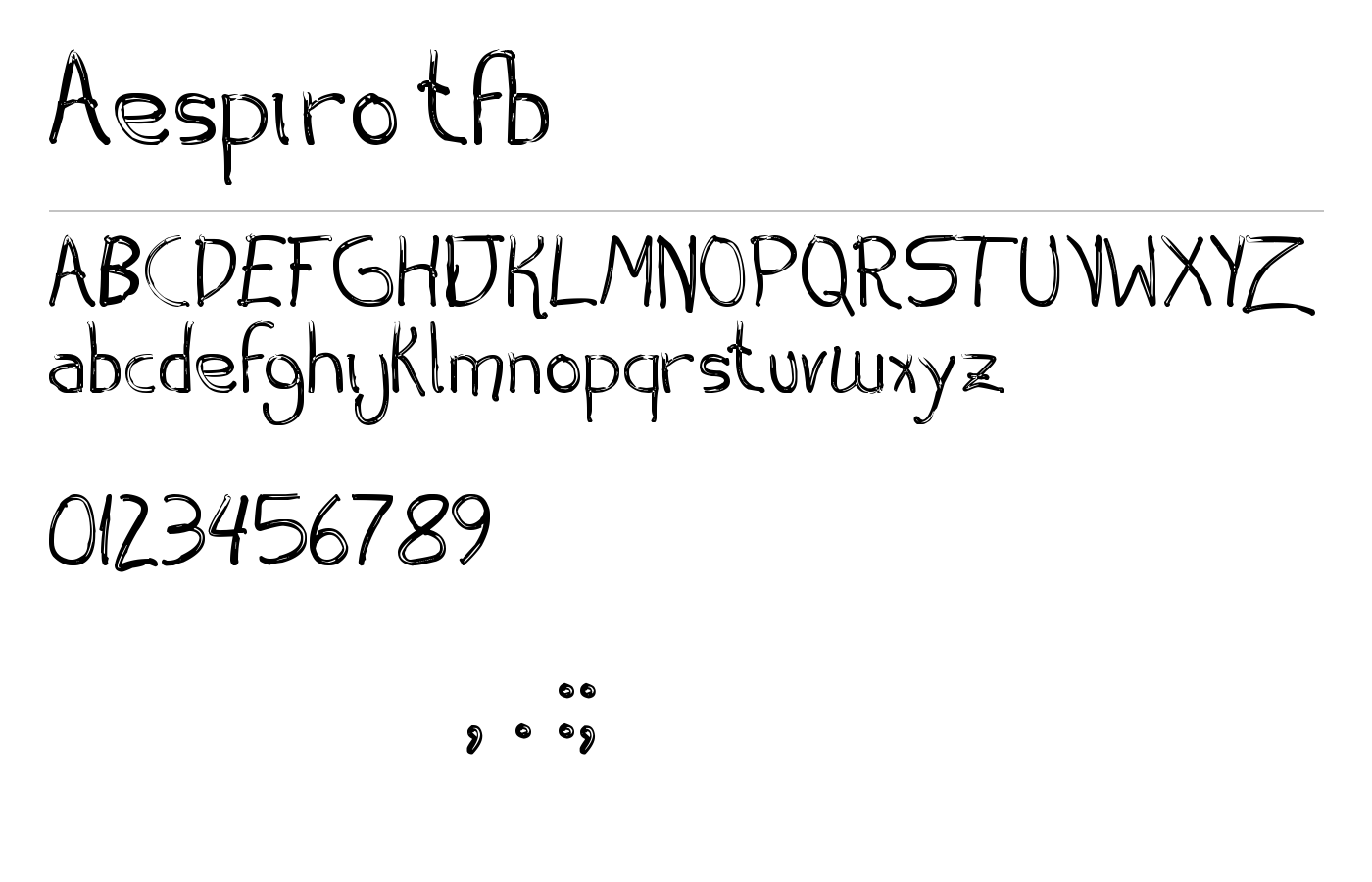
Aespiro tfb is a quirky, hand-drawn sans serif font with a casual and playful vibe. Its thin, uneven strokes and irregular shapes give it a lively, organic feel, making it ideal for creative projects, informal branding, and designs seeking a personal, artistic touch. This font works well for headlines and display uses where a unique, friendly character is desired.
Aespiro tfb Font
About Aespiro tfb Font